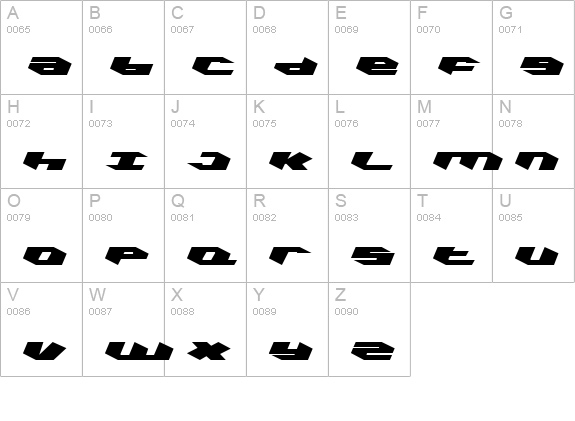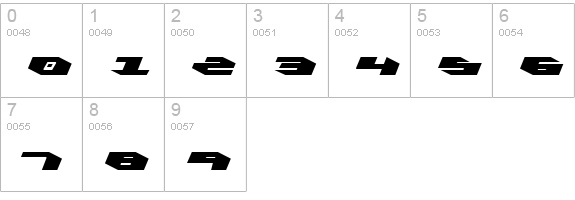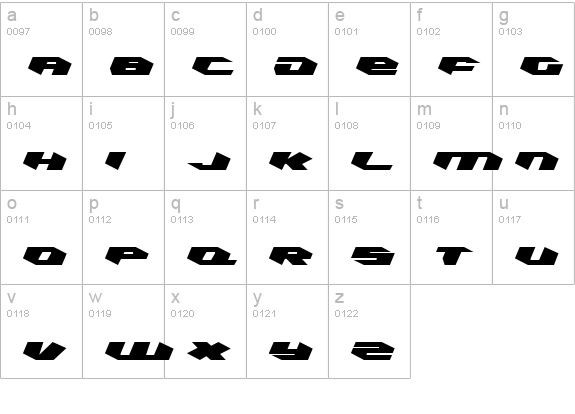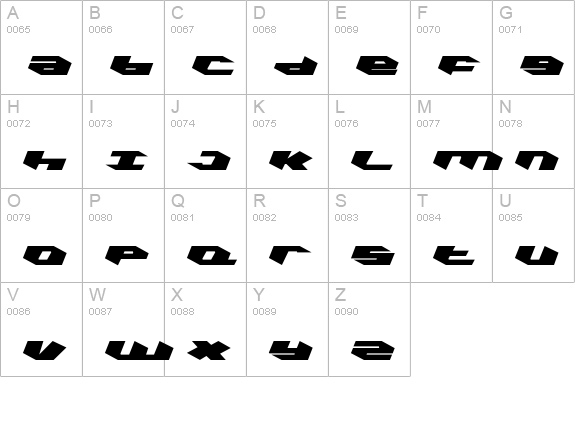
Kubrick Leftalic font is a sleek and modern typeface that exudes sophistication and elegance. Its slanted design adds a touch of flair to any project, making it perfect for headings, titles, and other display purposes. The graceful curves and clean lines of Kubrick Leftalic font create a sense of movement and fluidity, adding a dynamic element to your design. Best of all, Kubrick Leftalic font is available for free download at FontsMarket.com. Whether you're a professional designer looking to elevate your work or a hobbyist seeking a stylish font for personal projects, Kubrick Leftalic font is the perfect choice. Don't miss out on this opportunity to enhance your designs with this versatile and eye-catching typeface. Download Kubrick Leftalic font today and take your creations to the next level.